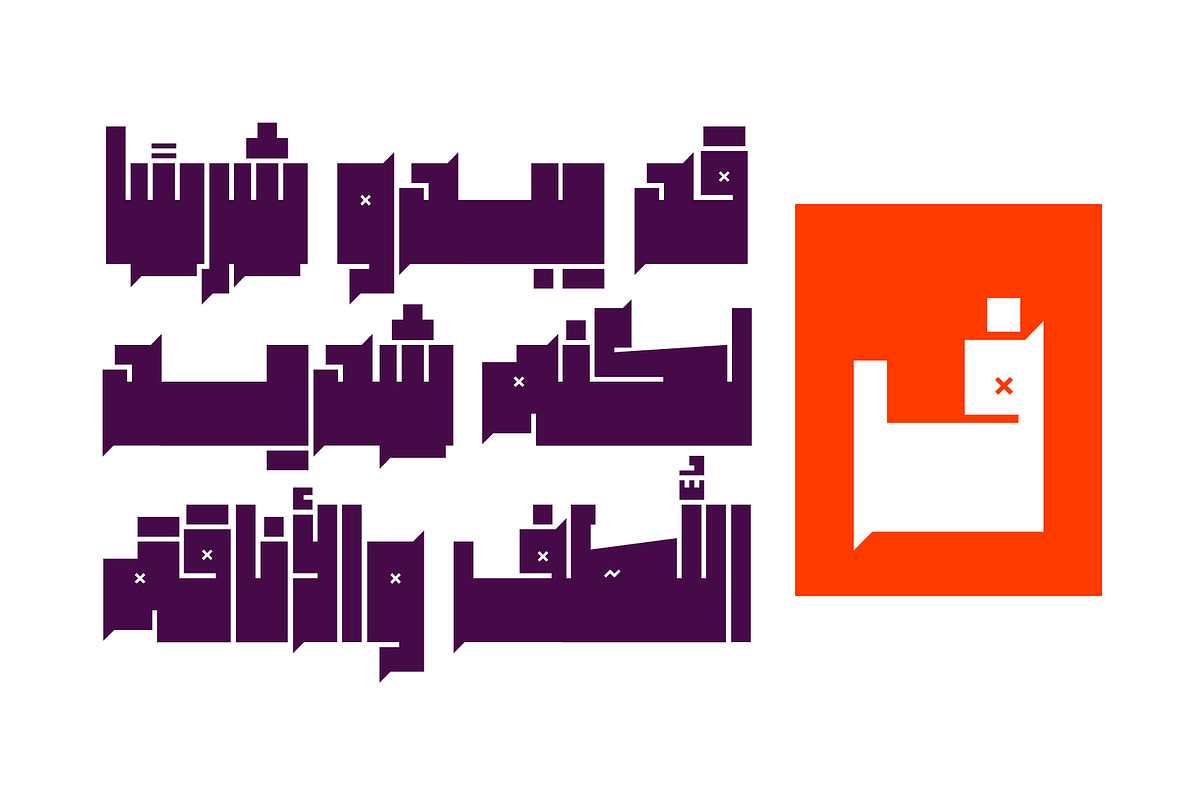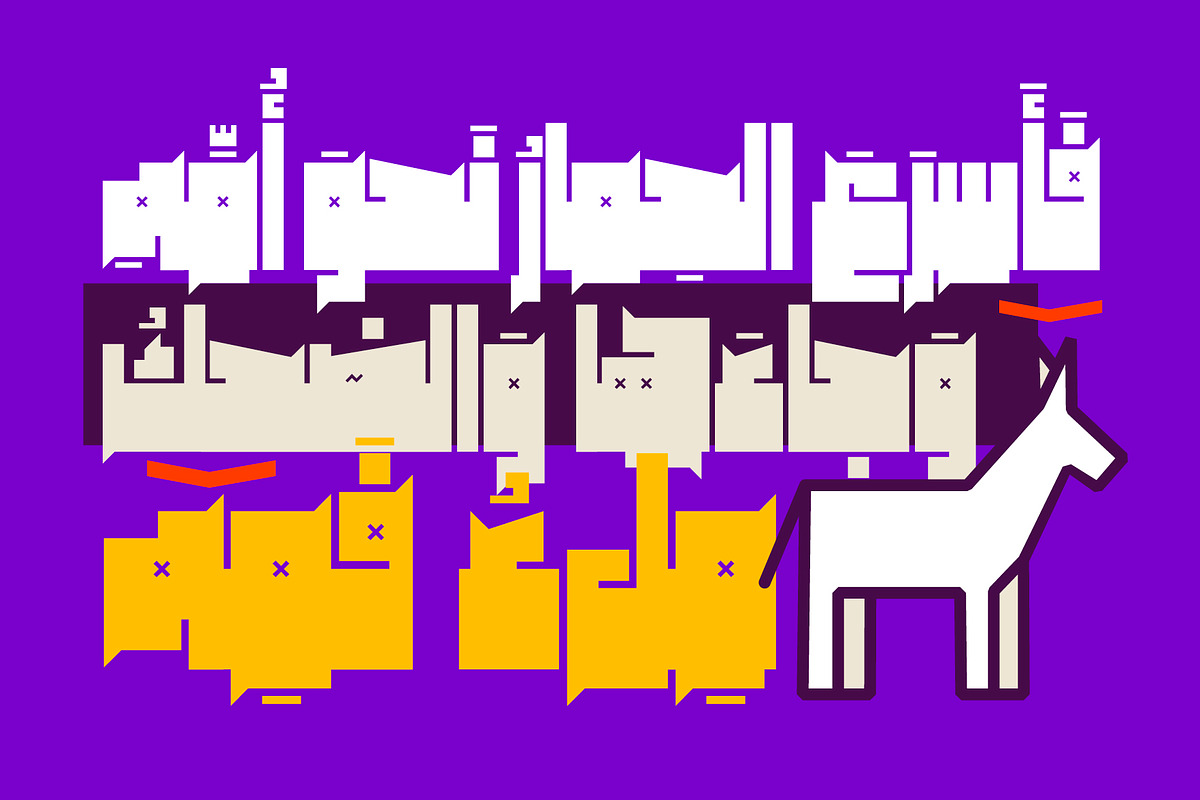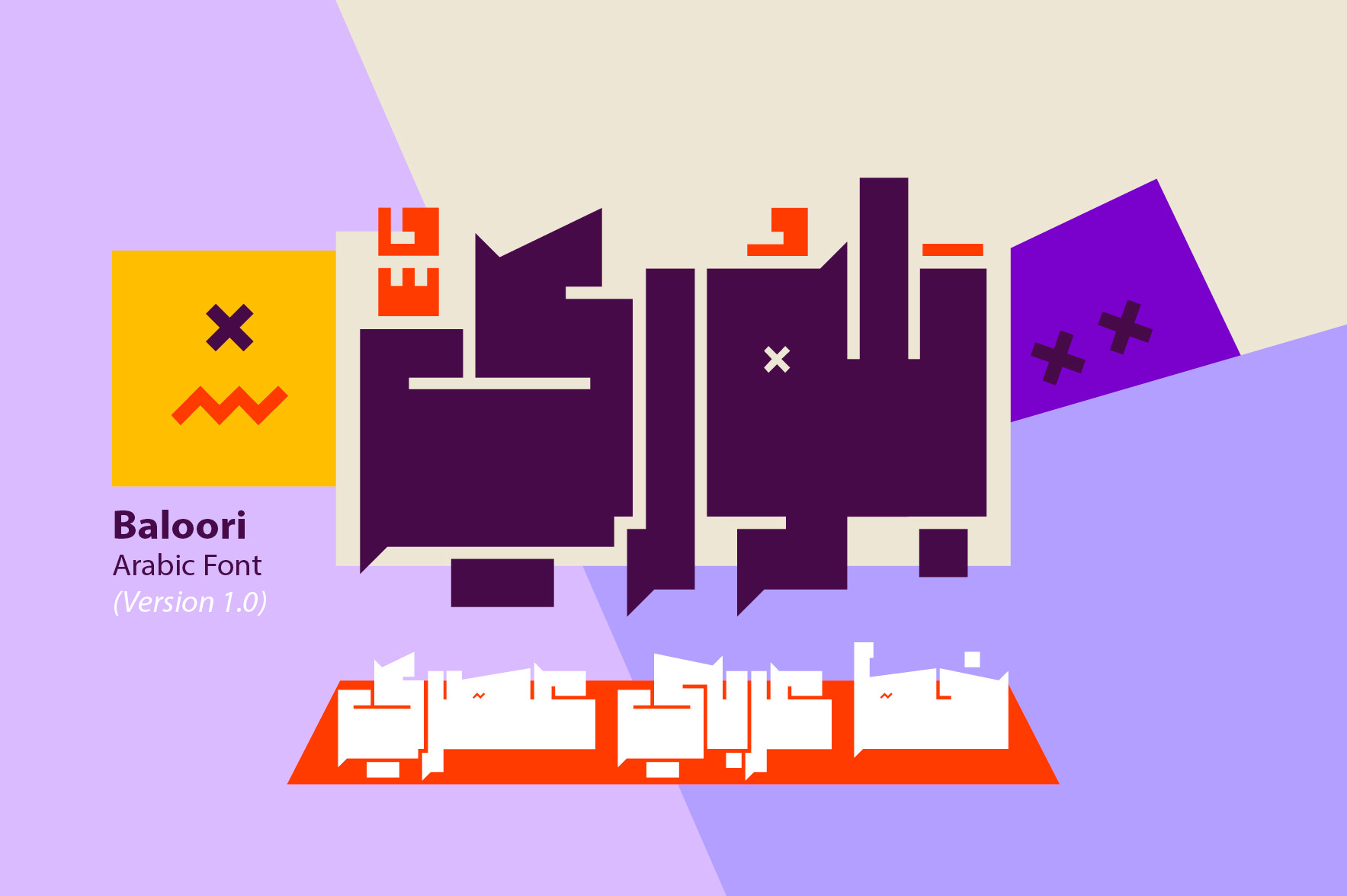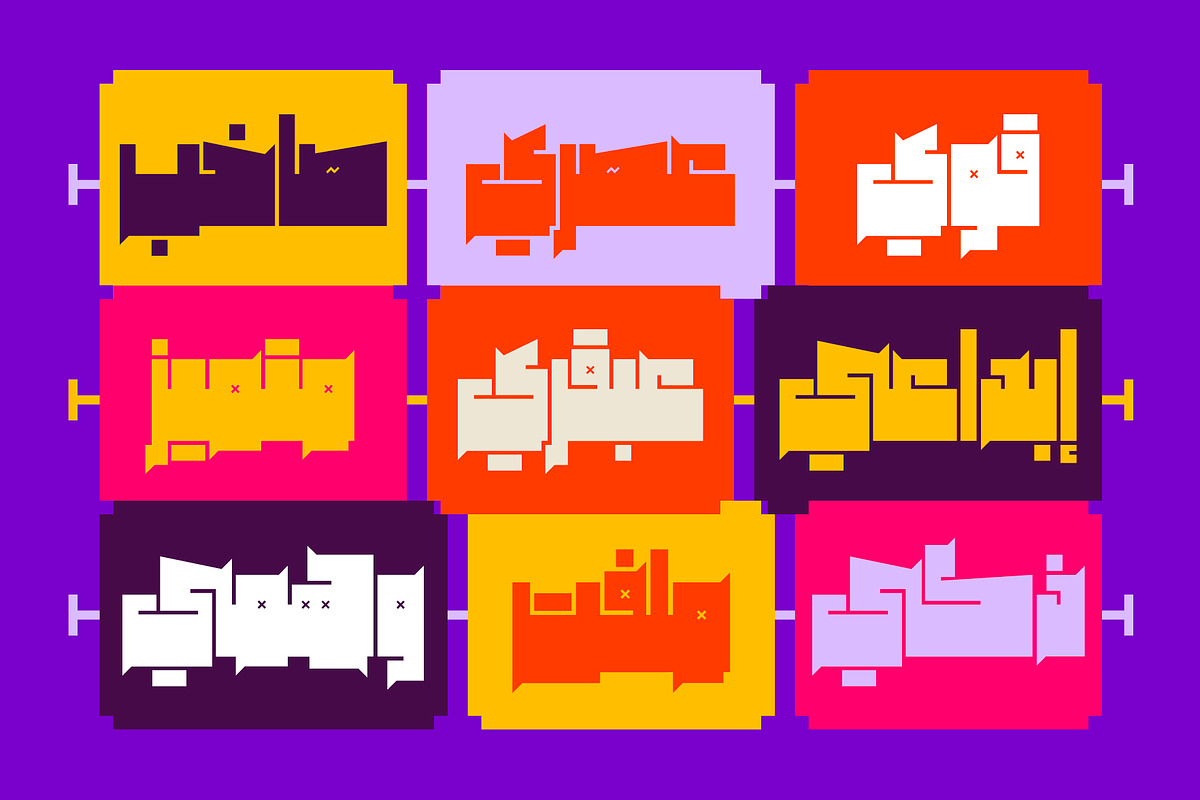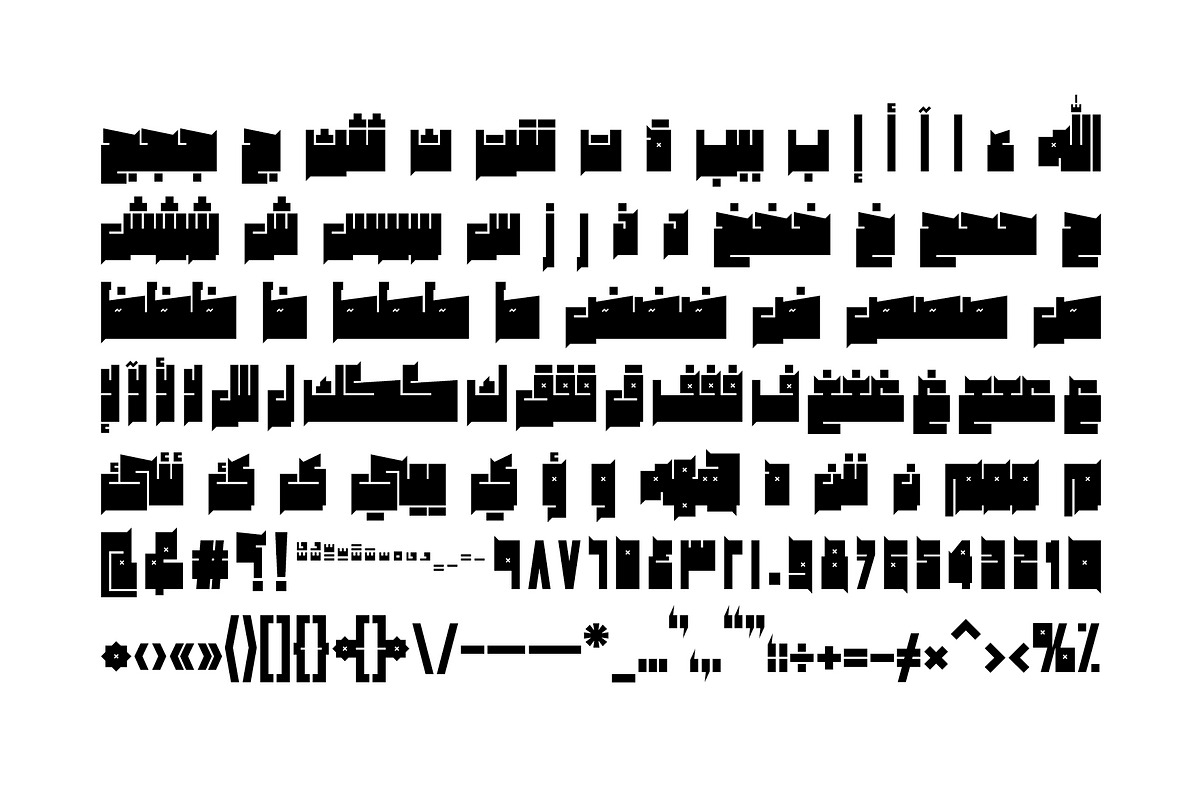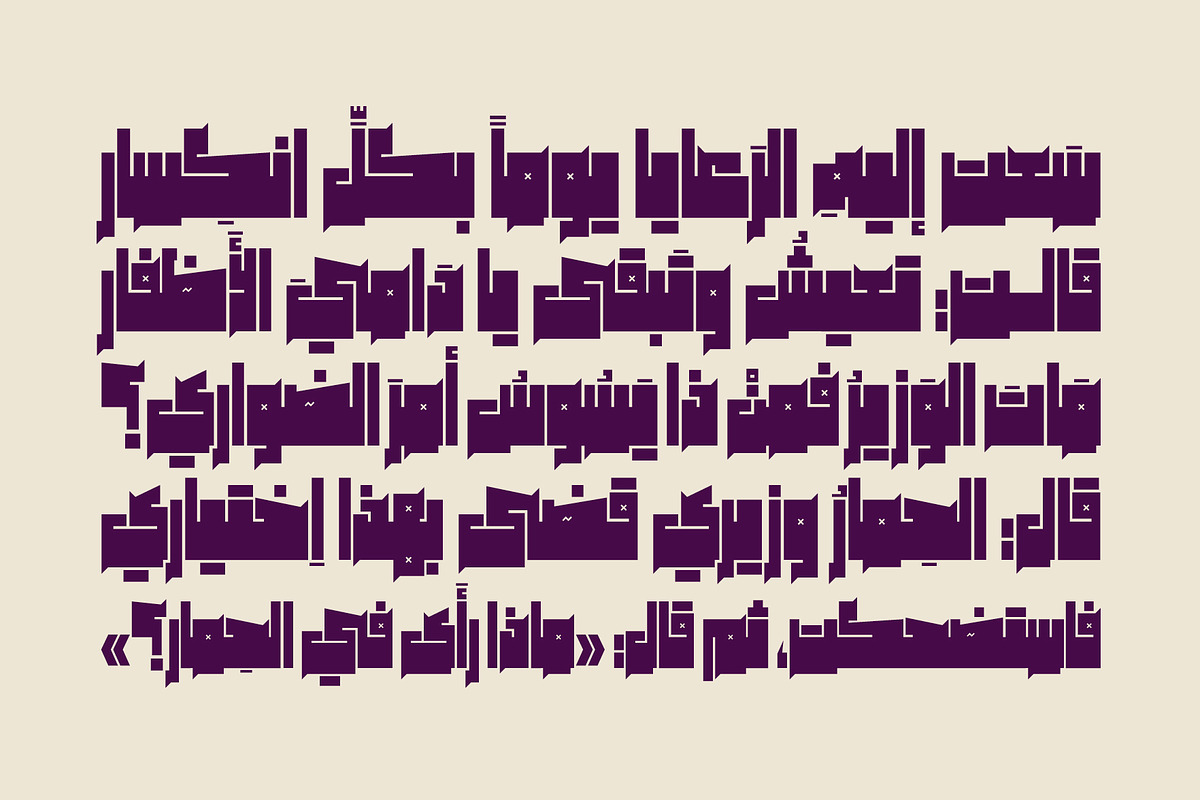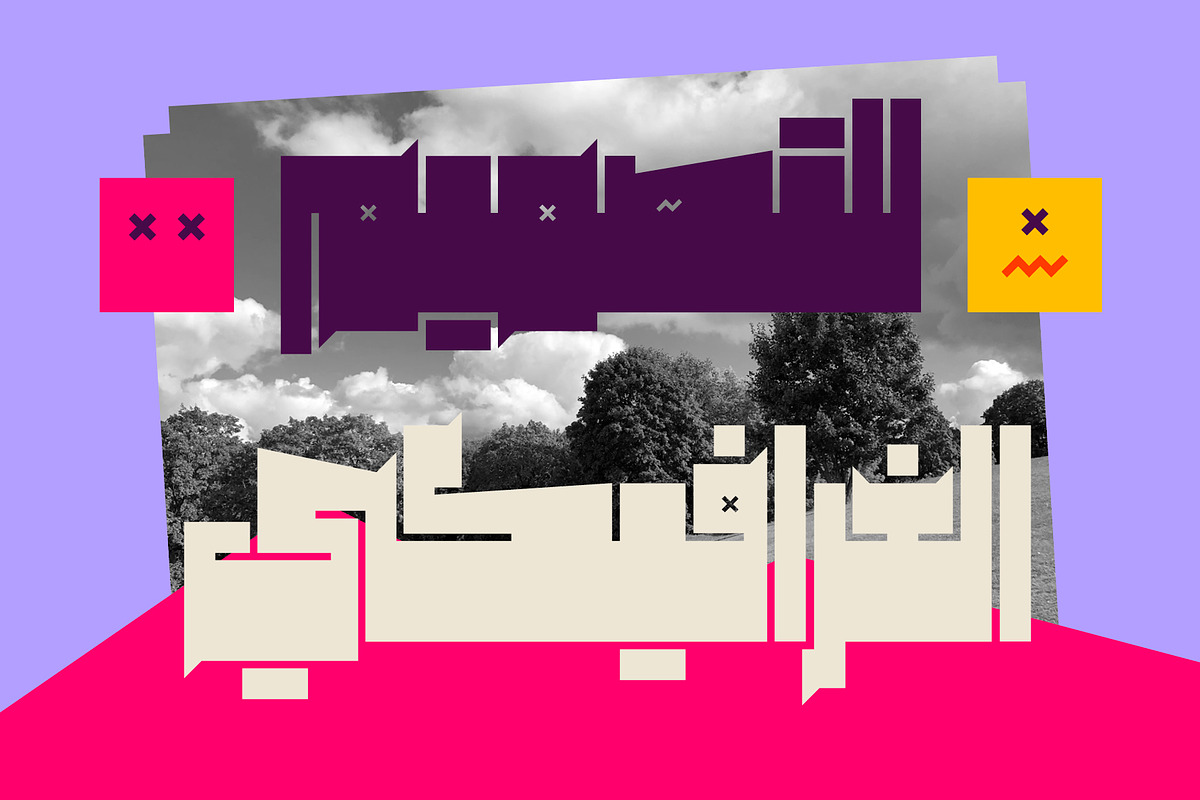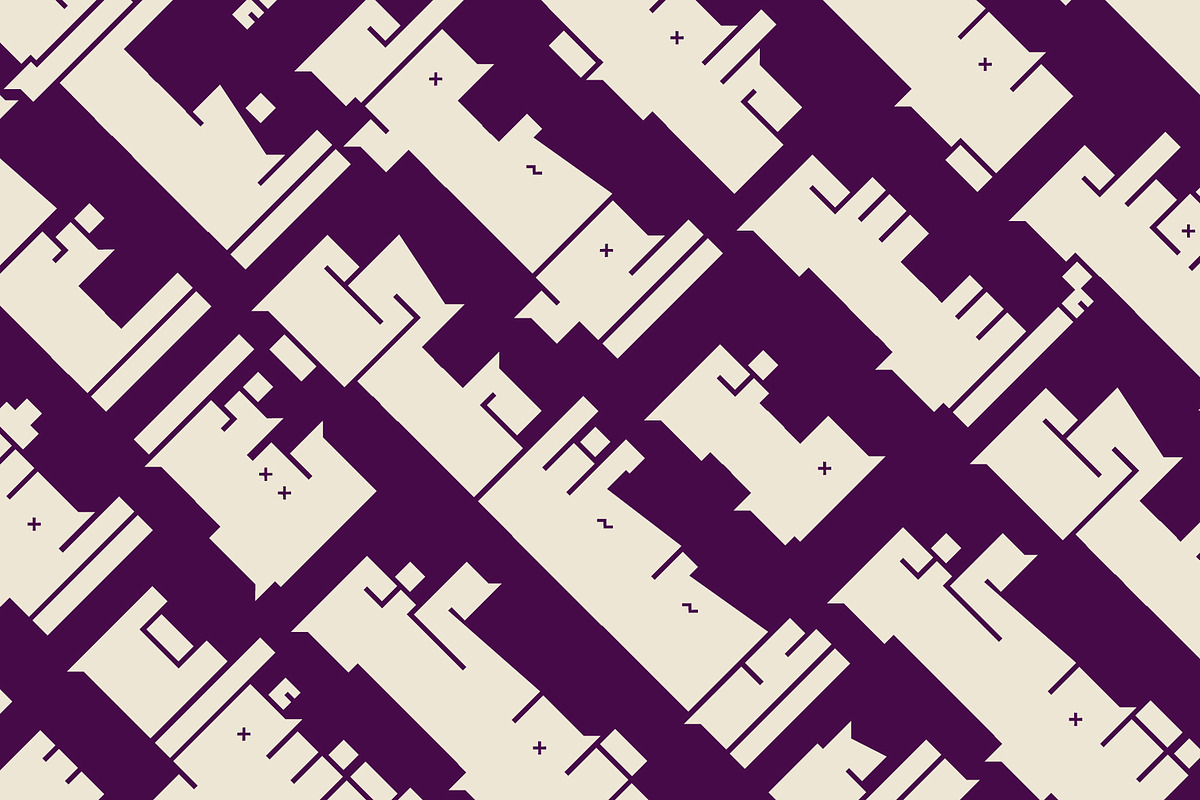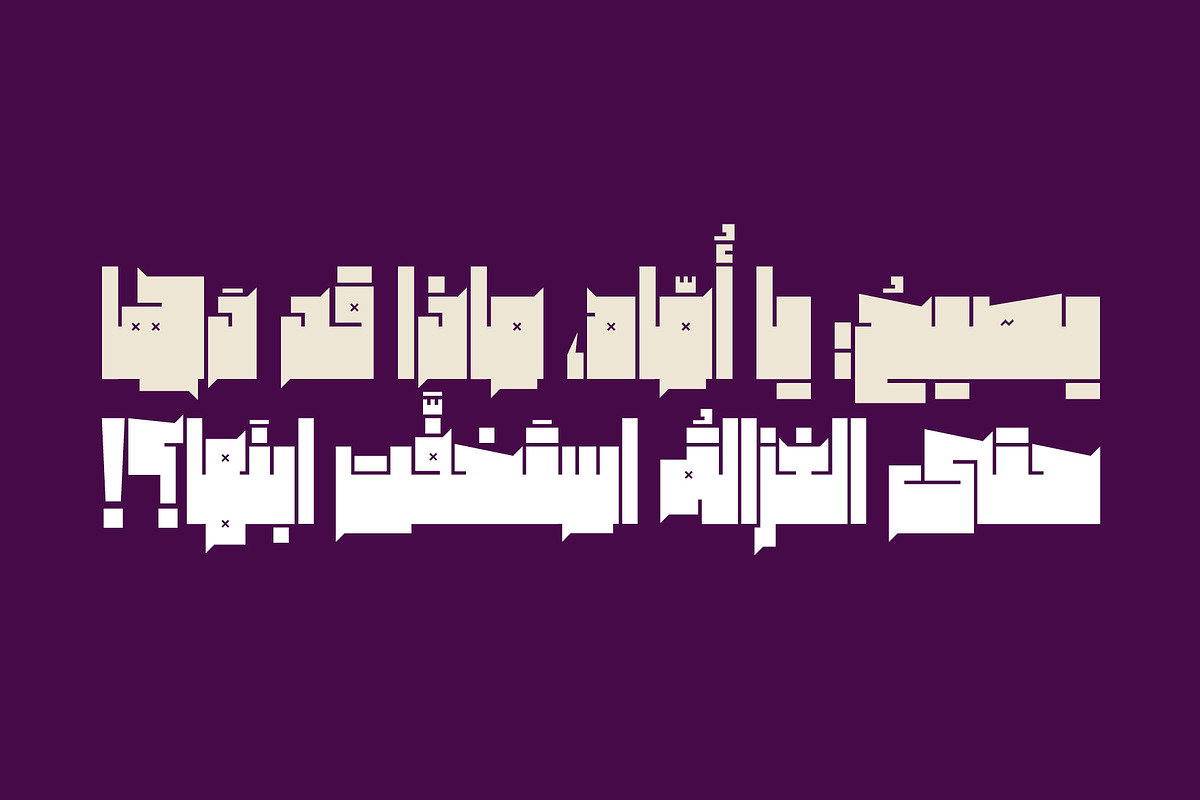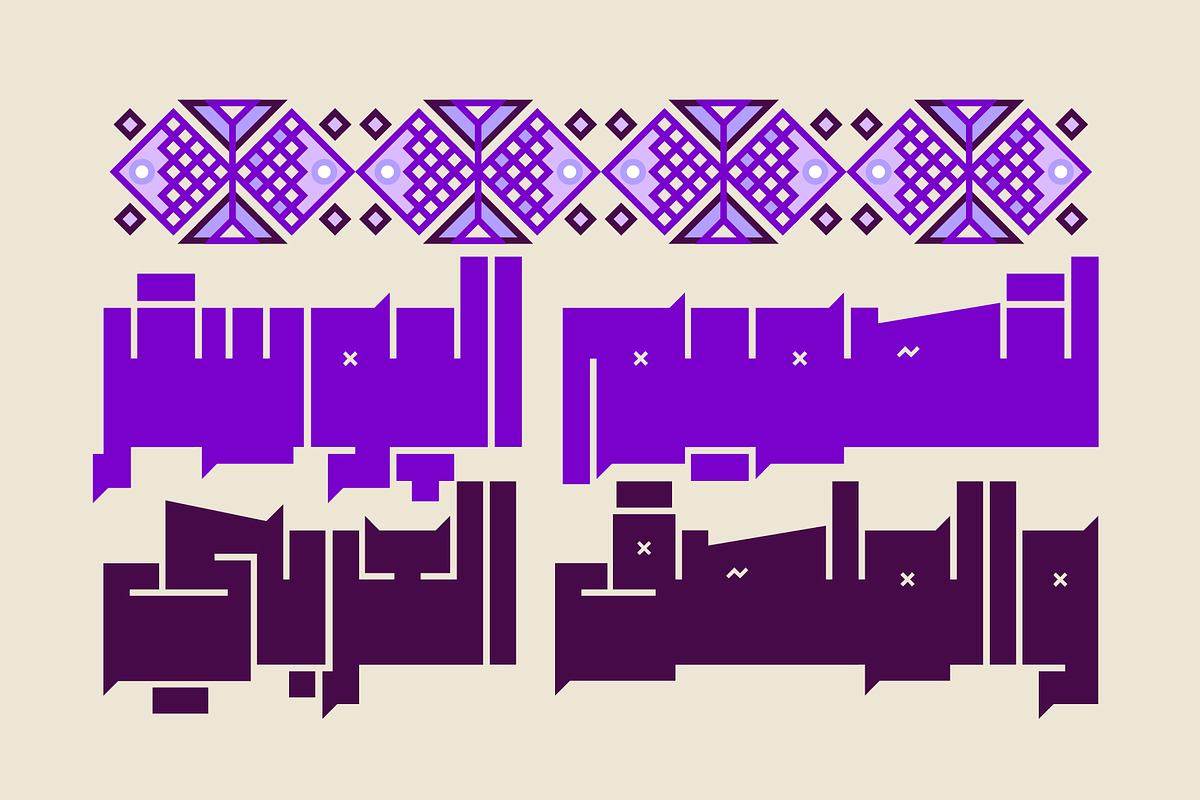
Baloori - Arabic Font
Baloori, derived from the Arabic word for 'Crystal,' is an eye-catching Arabic display font that features a strong rectangular design in its letterforms. It is perfect for a range of contemporary design projects, such as web design, print media, branding, advertising, and mobile applications. Baloori is compatible with both Windows and macOS.